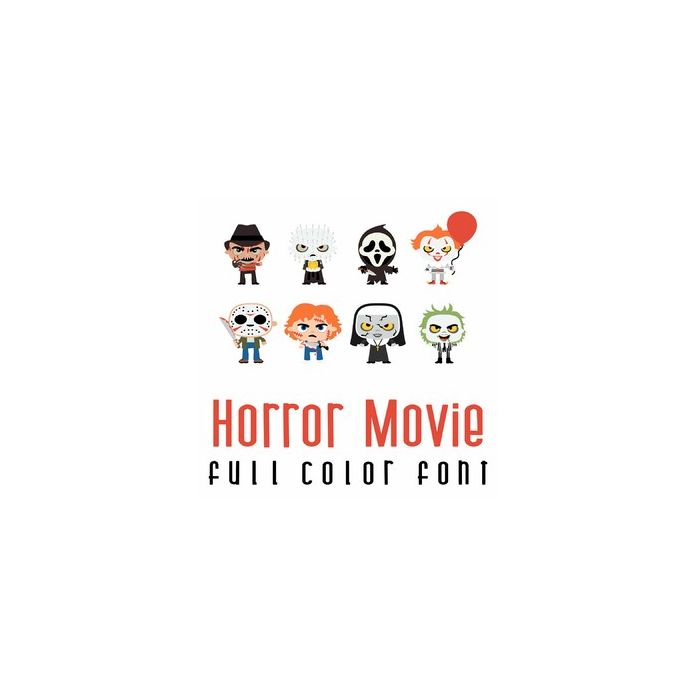
This fun full color doodlebat font features 26 characters from your favorite spooky movies. Perfect for Halloween, parties, gifts, crafts, decor, planner stickers, scrap book pages and more!